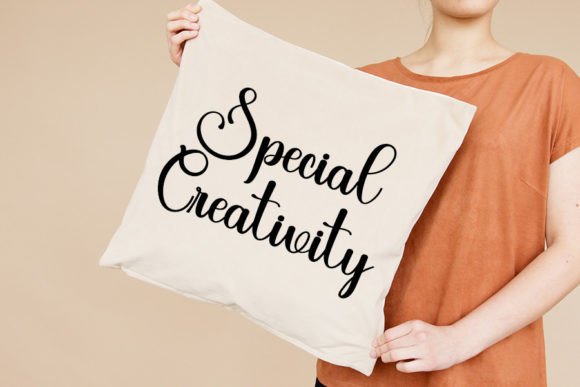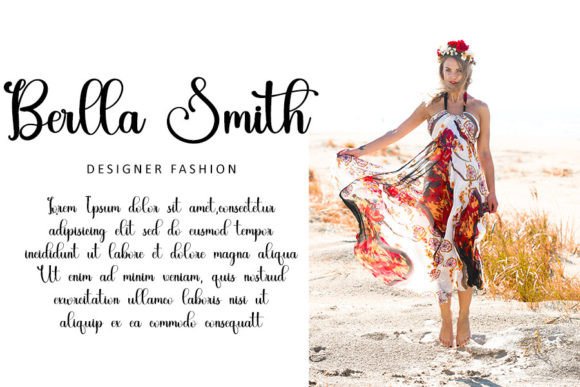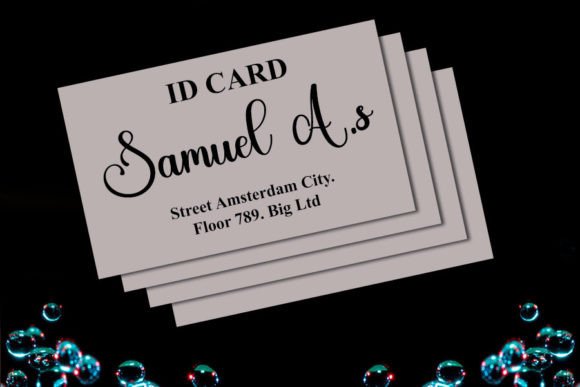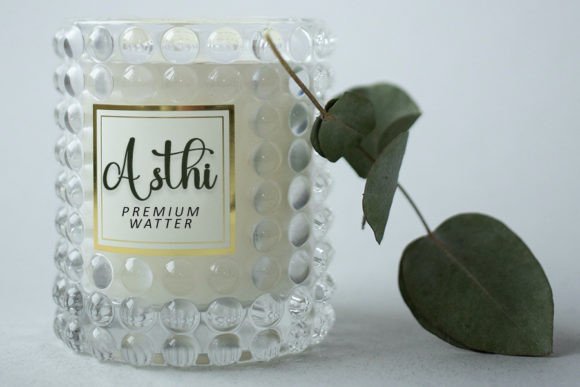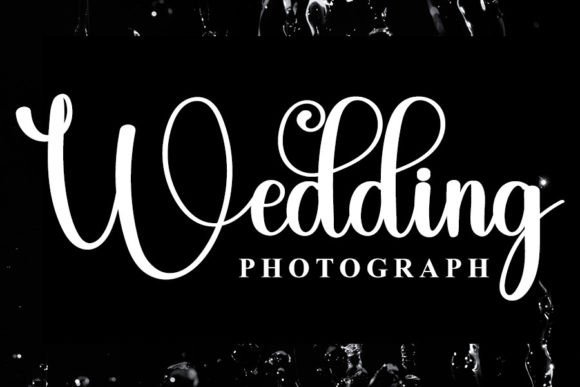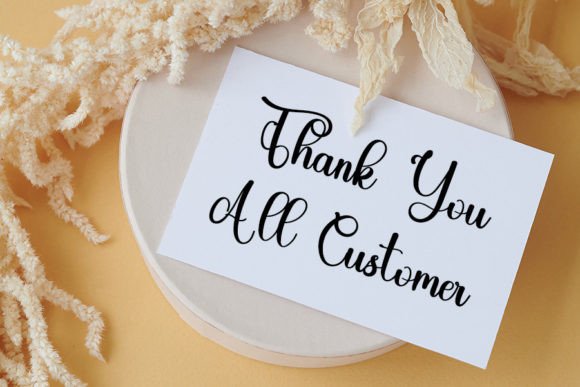
Discover the Magic of Bubble Font
Remember the moment when you stumbled upon the perfect font for your next creative project? The one that made you go ‘aha!’ and gave you the confidence to take your design to the next level? For many of us, this moment is a defining experience in our creative journey.
Bubble Font is one of those special finds that can elevate your designs and leave a lasting impression on your audience. This elegant script font is designed to add a touch of whimsy and sophistication to your work, making it perfect for wedding invitations, stationery art, social media posts, and more. With its PUA encoding, you can access all the glyphs and swashes with ease, giving you endless possibilities to experiment and express your creativity.
Bubble Font Key Features
- Unique Characteristic: The font’s distinctive bubble-like shapes and rounded edges give it a playful, whimsical feel, making it perfect for creative and design projects.
- Font Style: Available in regular and bold weights, Bubble Font offers a range of options for designers to create visually appealing and effective typography.
Bubble Font Review
I recently had the chance to work with the Bubble Font, and I must say it’s a unique and interesting typeface. ✨ Here are some things that stood out to me:
- Expressive character shapes: The Bubble Font features some truly one-of-a-kind character shapes that are sure to grab attention.
- Playful feel: The font’s bubbly, rounded edges give it a lighthearted and approachable feel that’s perfect for playful or whimsical designs.
- Good legibility: Despite its unconventional shapes, the Bubble Font is surprisingly easy to read, even at smaller sizes.
- Limited versatility: The Bubble Font is best suited for playful or creative projects, and may not be the best choice for more formal or professional designs.
- Slightly difficult to pair: The font’s unique character shapes can make it tricky to pair with other fonts, which may limit its versatility in certain design contexts.
Overall, I think the Bubble Font is a fun and expressive typeface that can add a unique touch to certain designs. While it may not be the best choice for every project, it’s definitely worth considering for more playful or creative endeavors.
The Bubble Font is commonly used in:
- Infographics and data visualizations.
- Social media graphics and posts.
- Marketing materials and brochures.
- Wedding and event invitations.